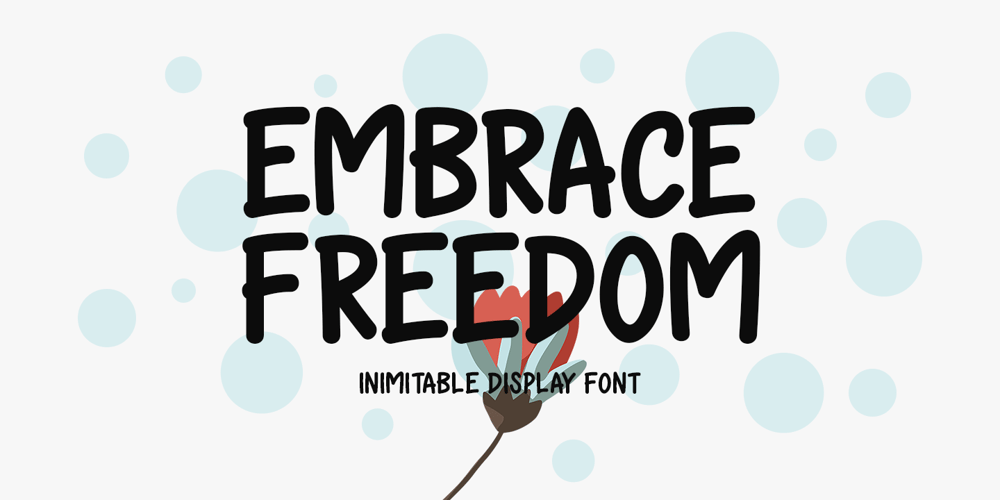
Embrace Freedom Font Family was designed by Md Shohail Bhuian and published by Seemly Fonts. Embrace Freedom contains 1 styles and family package options. Embrace Freedom stands out as a unique display font, designed to capture attention and inspire. Ideal for adding a touch of individuality to stationery, logos, apparel, printed materials, web headers, photo frames, promotional flyers, music covers, and posters, this font brings a distinctive flair to a wide array of design projects.